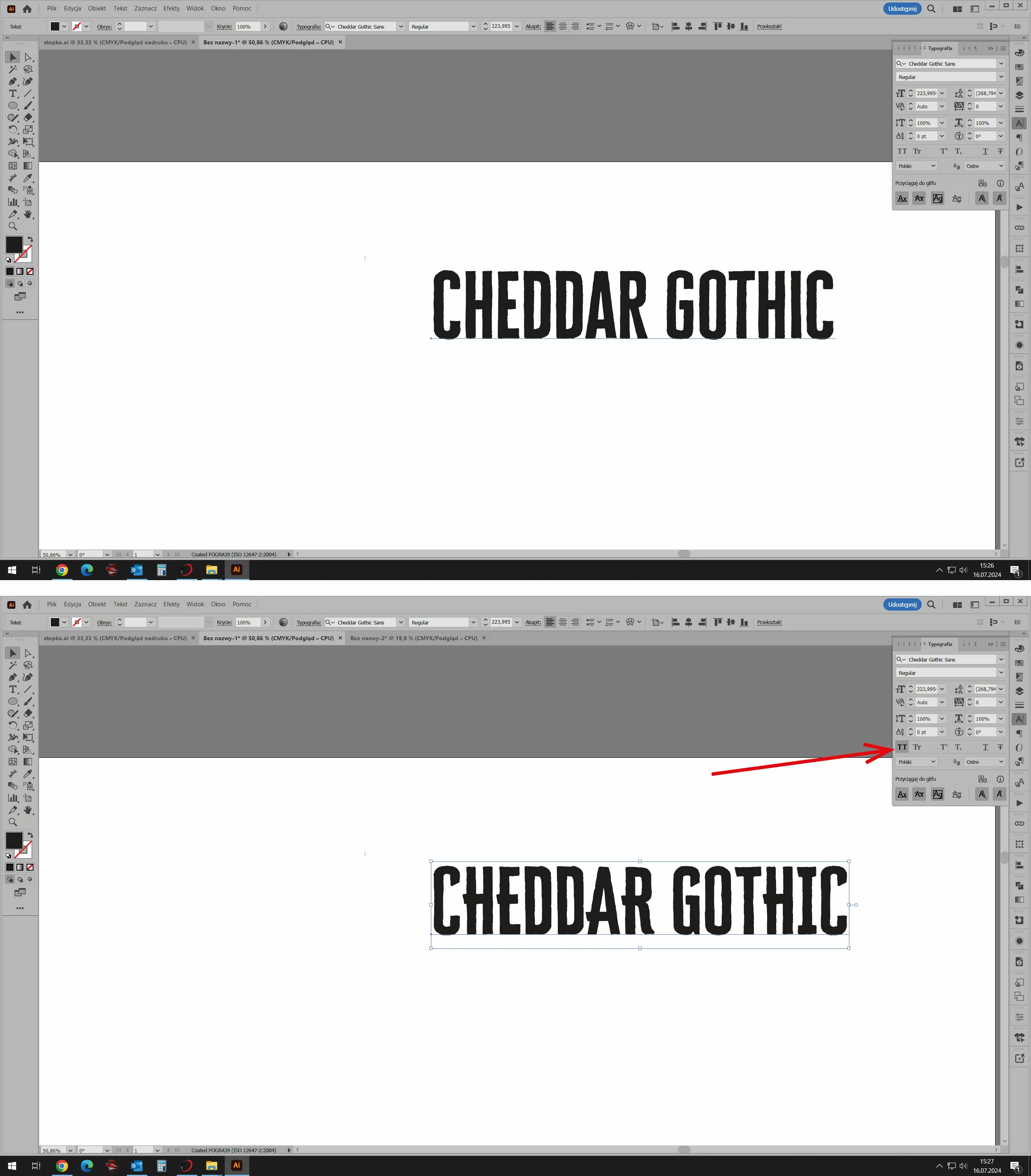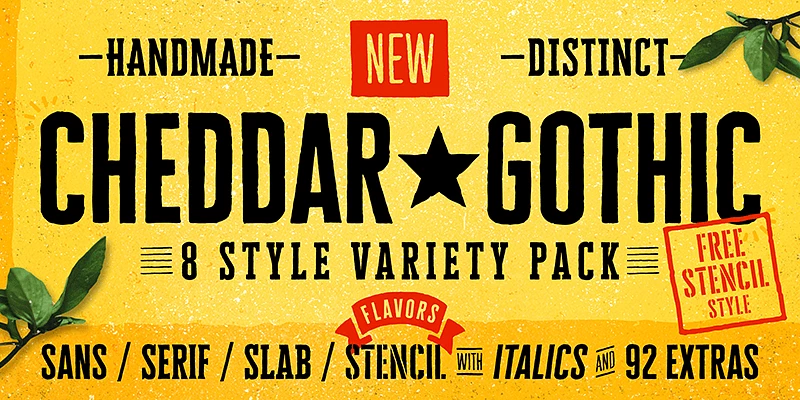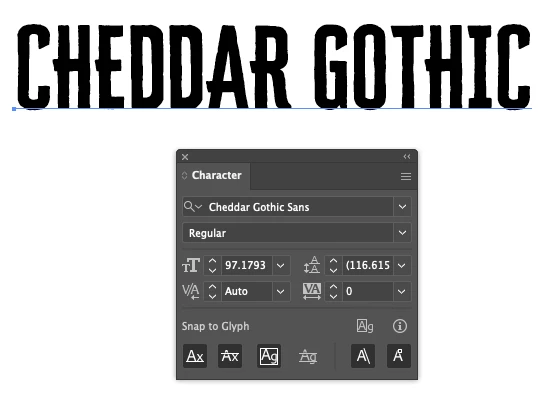
Font Has Different Appearances in Adobe Illustrator
I recently added Cheddar Gothic to my creative cloud to use and what I type on the document is different than what I see on the preview on Adobe Fonts. There are times where I type with it and I get the appearance that was advertsed but that's seldom. The version I want is without the little accents on, for example, the A or E.
@Gavin258399745qm1   @Monika Gause   the font that is in the first screenshot that says 'Cheddar Gothic' isn't 'Cheddar Gothic' it's a different font. I downloaded 'Cheddar Gothic' and installed it, and it is exactly what it supposed to be...
The font that you want in that thumbnail is called Komu B
I am guessing the font creator wanted to make sure you can read the font in the thumbnail? 'Cheddar Gothic' is readible!
Piszesz wielkimi literami. W Adobe Fonts patrzysz na małe litery.
I do not see the accents you are referring to.